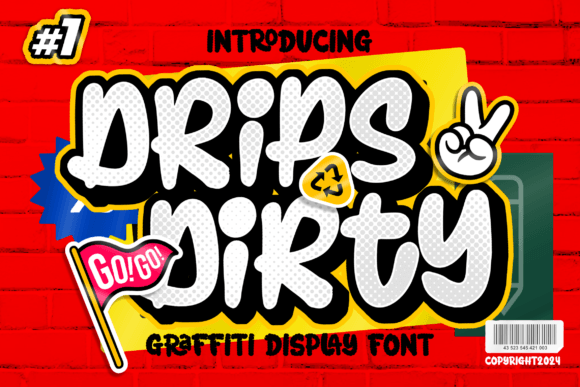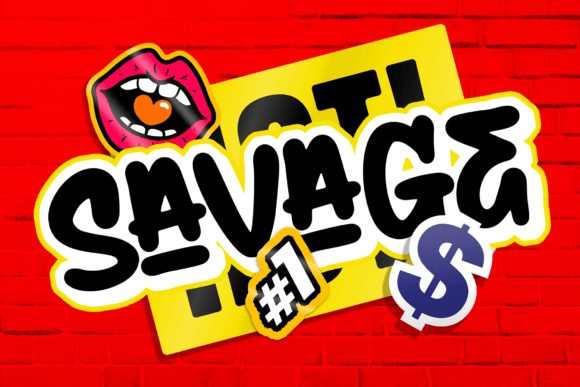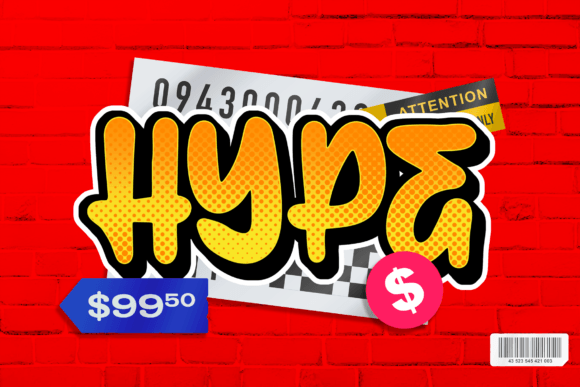
Drips Dirty Font
Drips Dirty Modern Marker Graffiti Brush is a bold and edgy font that brings the energy of street art to your designs. With its gritty texture and expressive strokes, it adds a raw and urban vibe to any project. Perfect for posters, logos, and headlines, this font makes a statement and grabs attention with its unmistakable style. Let your creativity flow with Drips Dirty Modern Marker Graffiti Brush!